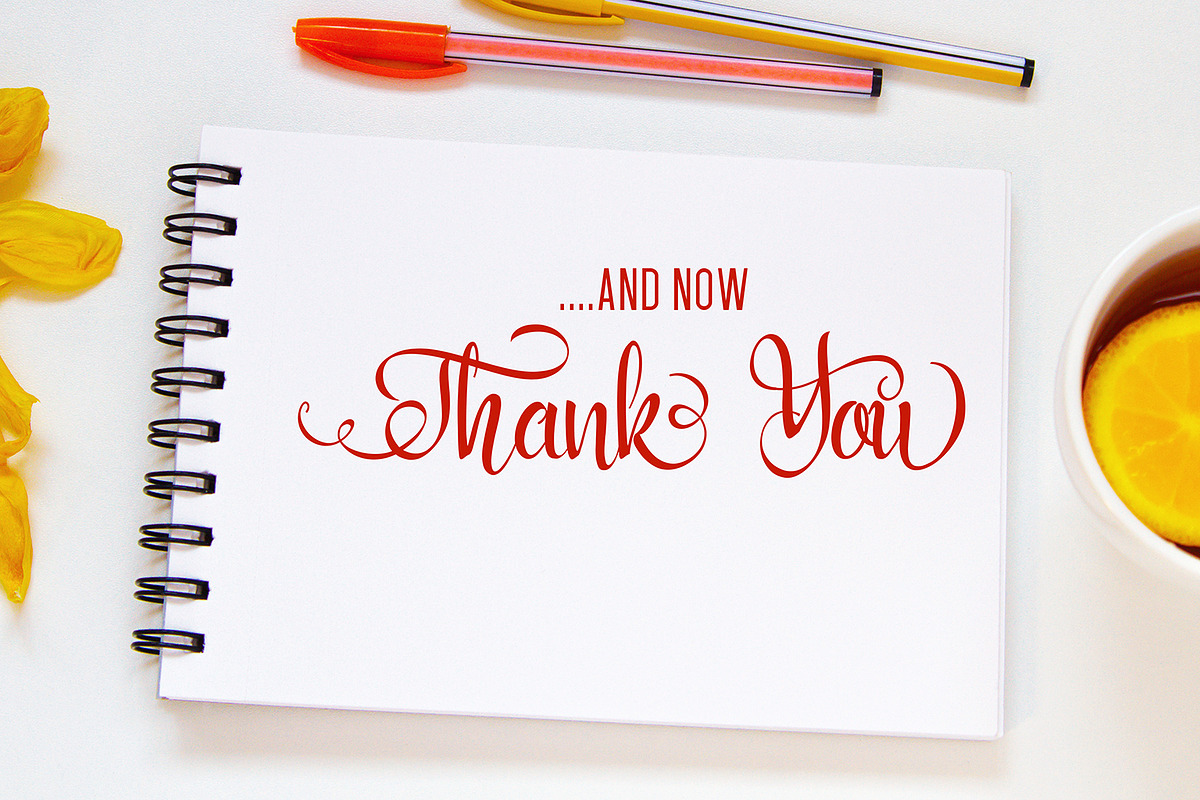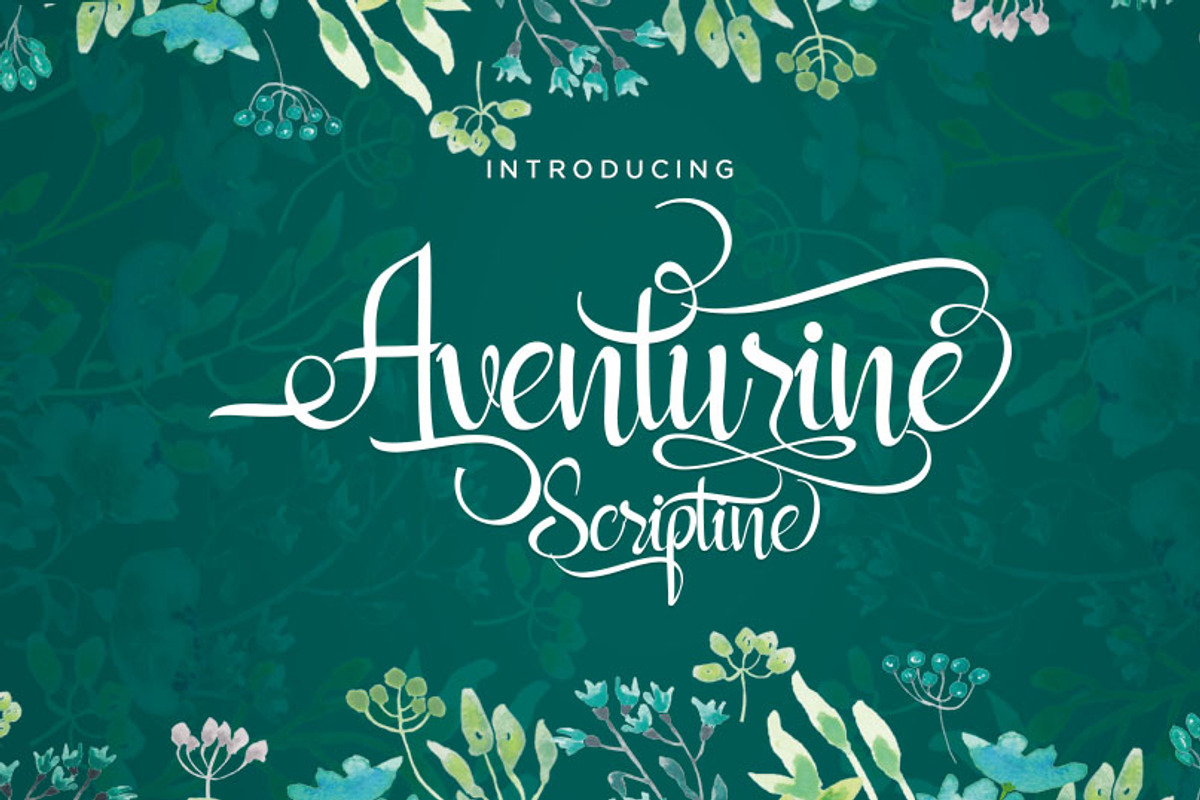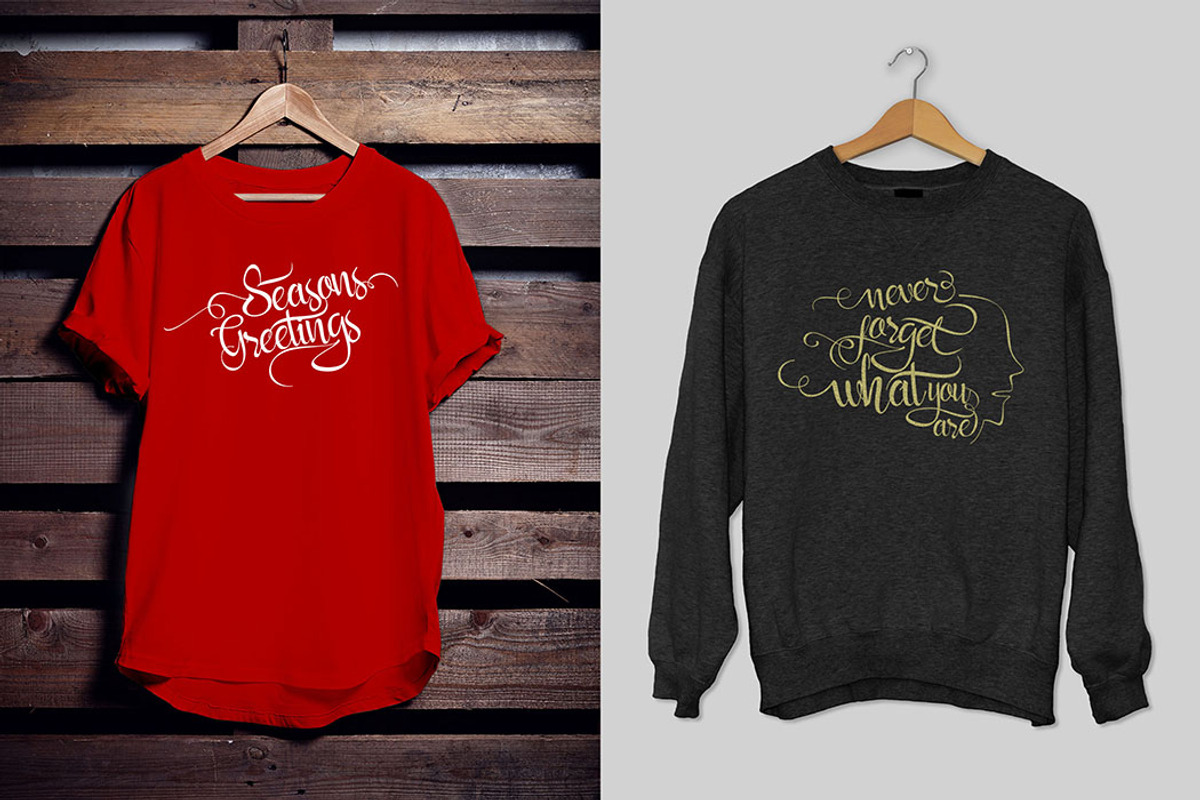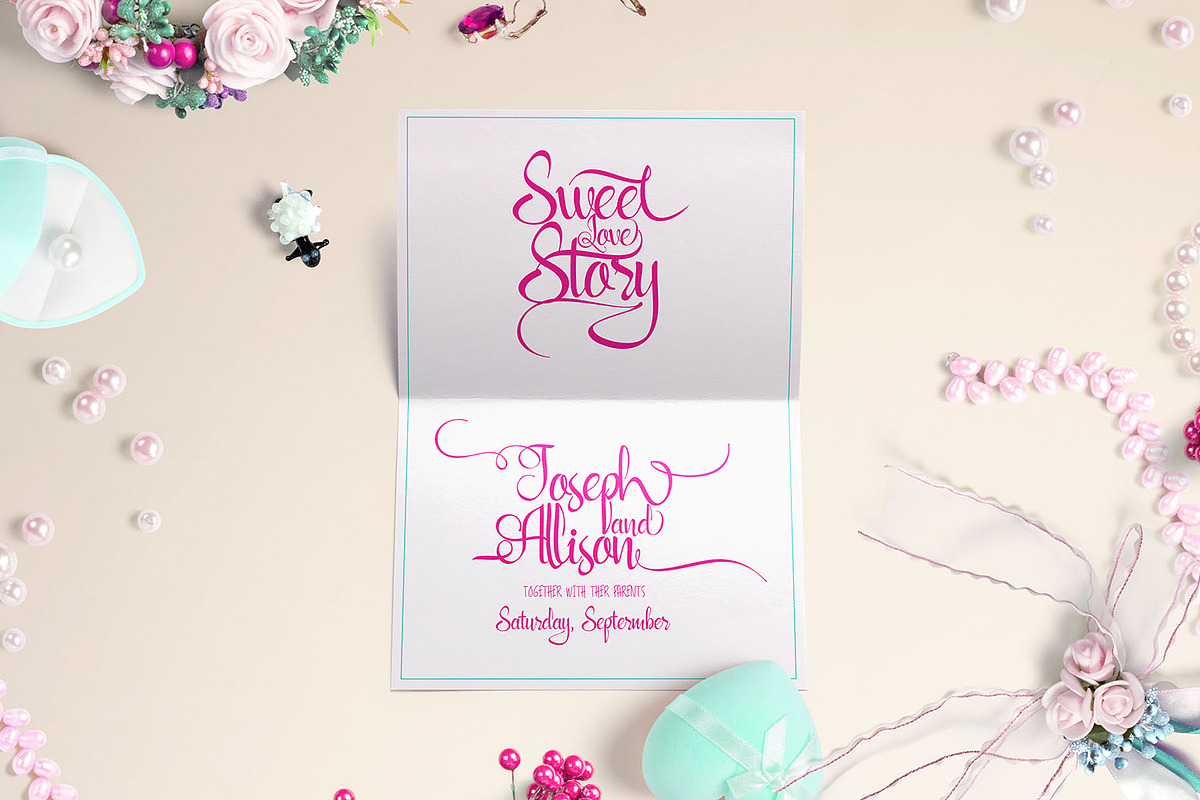
Aventurine Script
Aventurine Script by Font Bundles is a font selected for branding, posters, packaging, typography.
- Aventurine Scriptine Font comes with 394 glyphs.
- Aventurine Scriptine - a new fresh & modern script with a handmade calligraphy style, decorative characters and a dancing baseline!
- The alternative characters were divided into several Open Type features such as Swash, Stylistic Sets, Stylistic Alternates and Ligature.
Why Aventurine Script is worth a look
Aventurine Script by Font Bundles fits naturally into Branding, posters, packaging, typography.